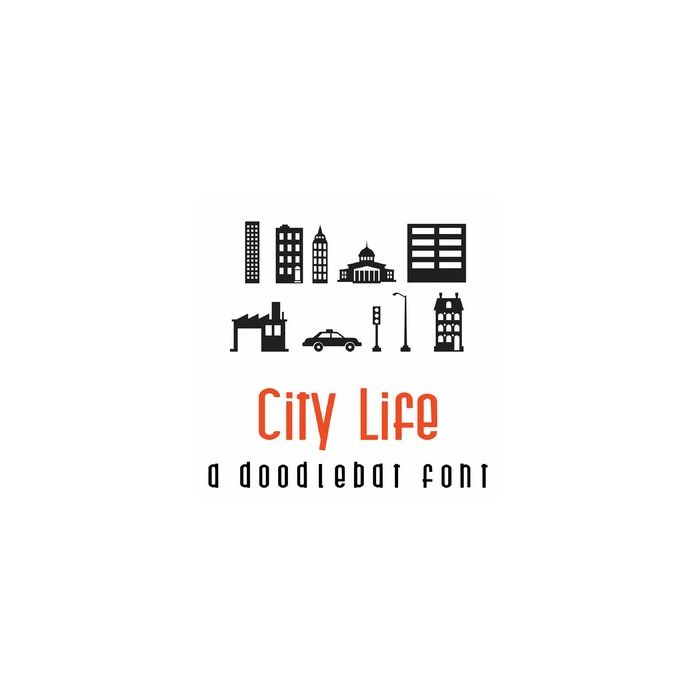
City Life Doodlebat Font
This fun doodlebat font features 26 city silhouettes. Perfect for cards, crafts, gifts, decor, scrap book pages, planner stickers and more!